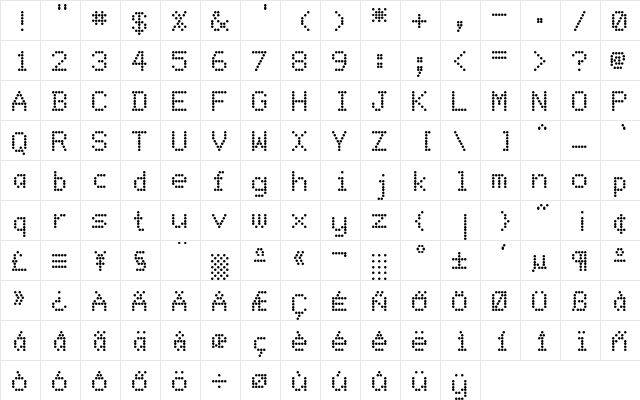
Matrixdit Regular
Matrixdit takes a measured approach to typography — its balanced proportions and neutral character make it a reliable workhorse for both digital and print work.